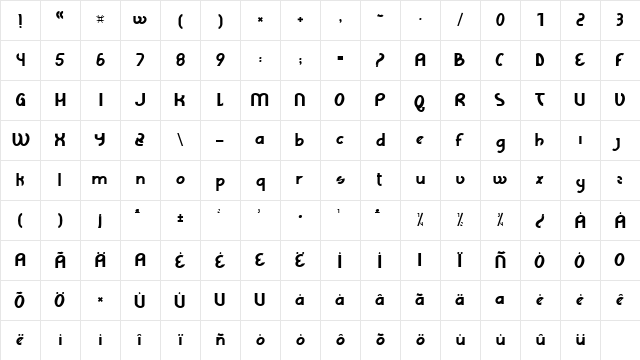
Complete WFF LAGE grafica FGM Normal Regular glyph index. Displaying only characters natively supported by WFF LAGE grafica FGM Normal Regular font.
WFF LAGE grafica FGM Normal is a composed and adaptable typeface that performs quietly and consistently across a wide range of design contexts.